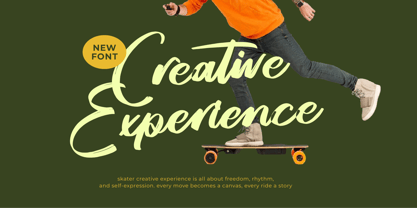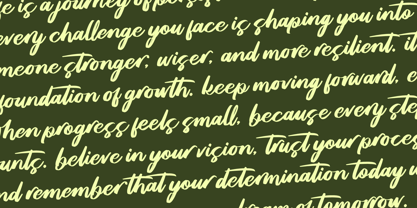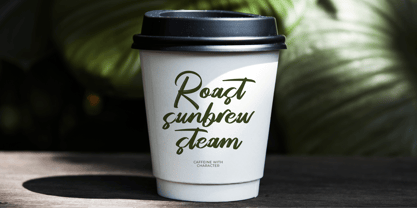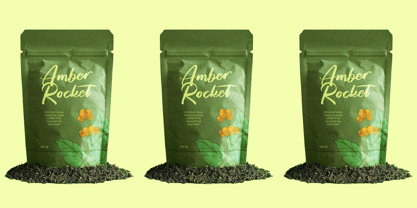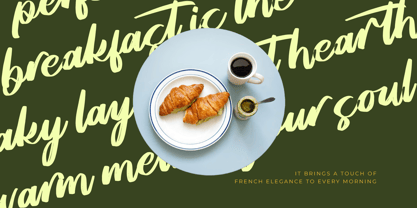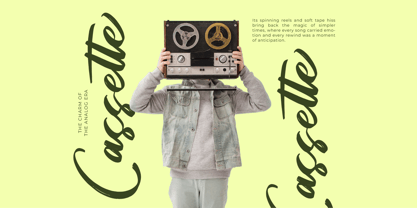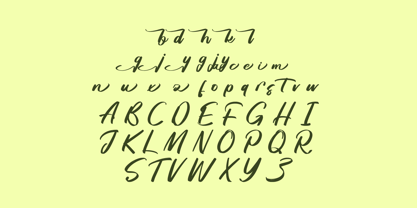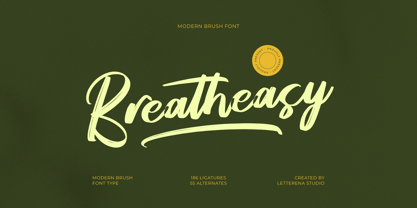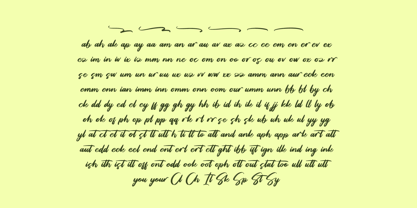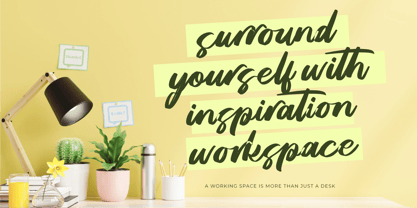
Breatheasy
by Letterena Studios
The Breatheasy Font Family was designed by Heru Utama Putra and published by Letterena Studios. Breatheasy contains 2 styles and family package options. More about this family
Breatheasy - Modern Brush Font Type, Breatheasy is a modern brush script font with bold strokes and a natural handwritten flow. Featuring 186 ligatures and 55 alternates, it captures the authentic texture of brush lettering, making it perfect for logos, posters, apparel, packaging, and social media graphics. Its dynamic and expressive style adds energy and personality to any project, giving your design a confident and modern handcrafted look.